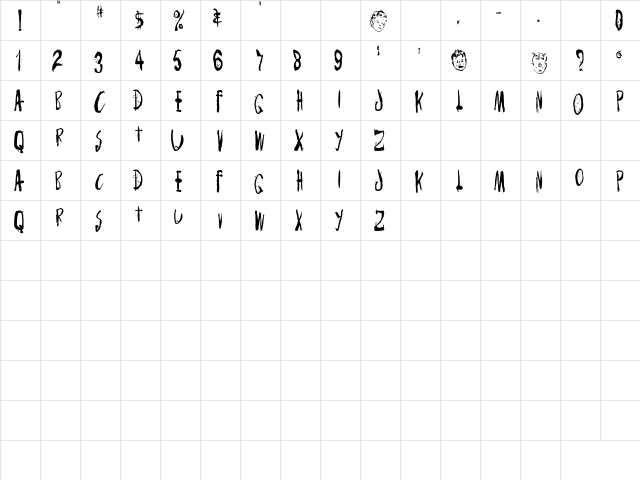
Monster Child Regular Font Preview
Monster Child Regular
Monster Child Regular Font Details
| Foundry | Dreadful Productions |
| Designer | Dr.Ead |
Design Context for Monster Child Typeface
Monster Child trades formality for fun, with bouncy, characterful letterforms that bring warmth and energy to any project.
Well-suited to food and beverage brands with personality, educational materials, and fun-forward identities.
Font Pairing: Pairs well with a rounded or humanist sans for body copy, maintaining the friendly tone without relying on Monster Child to carry extended reading.